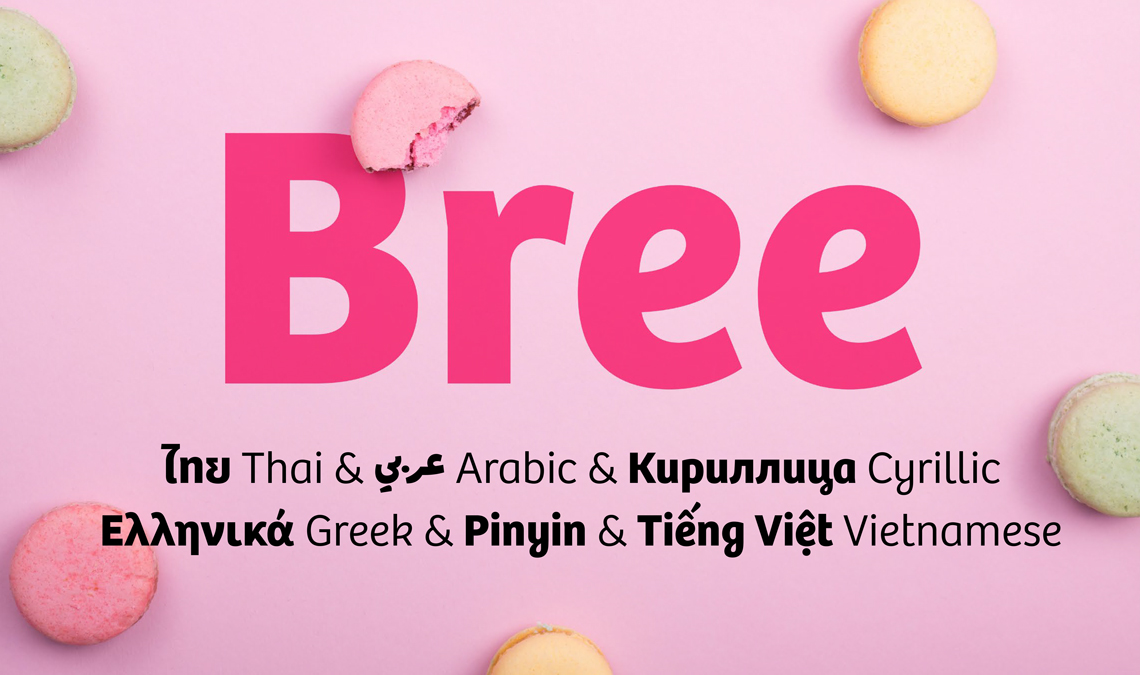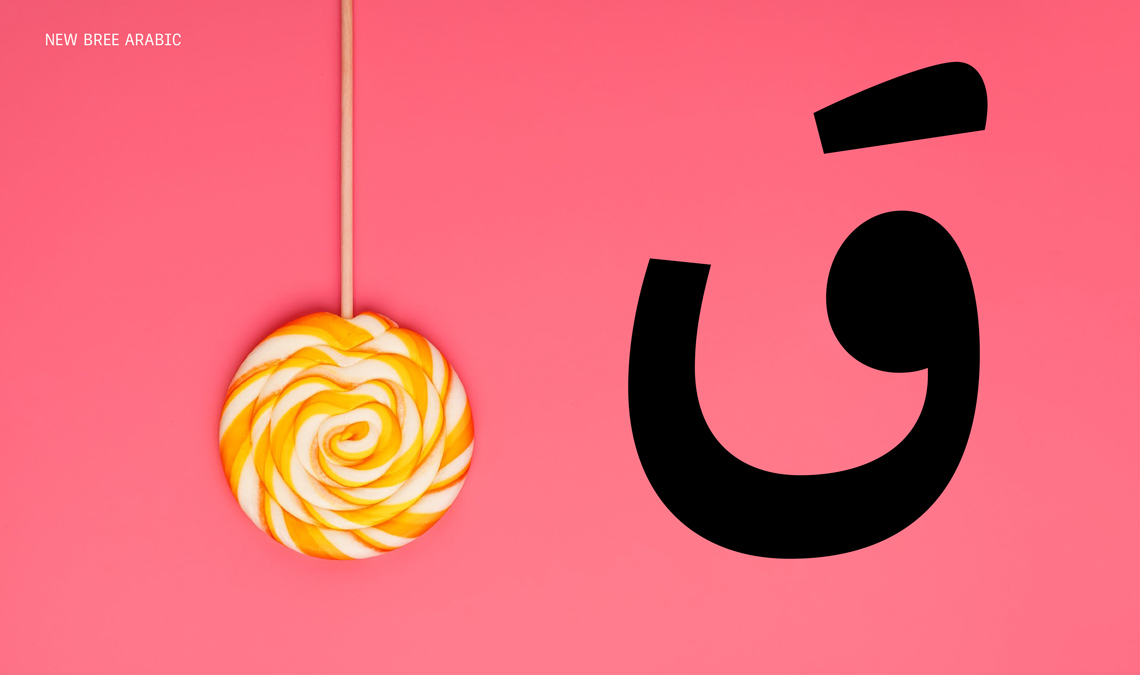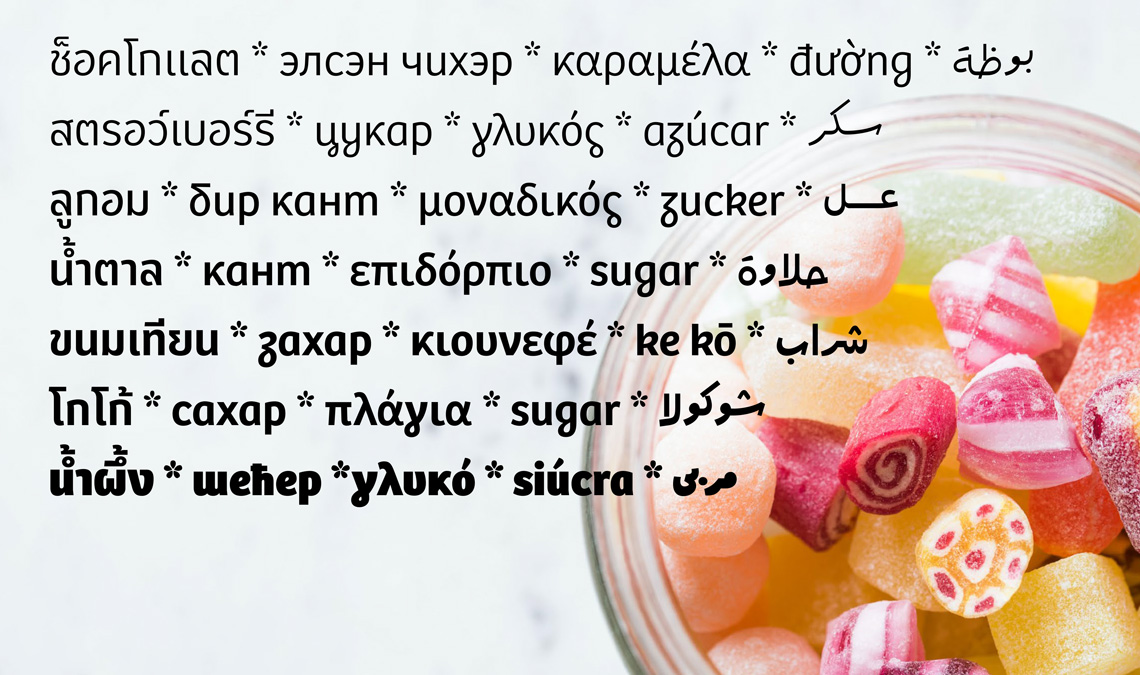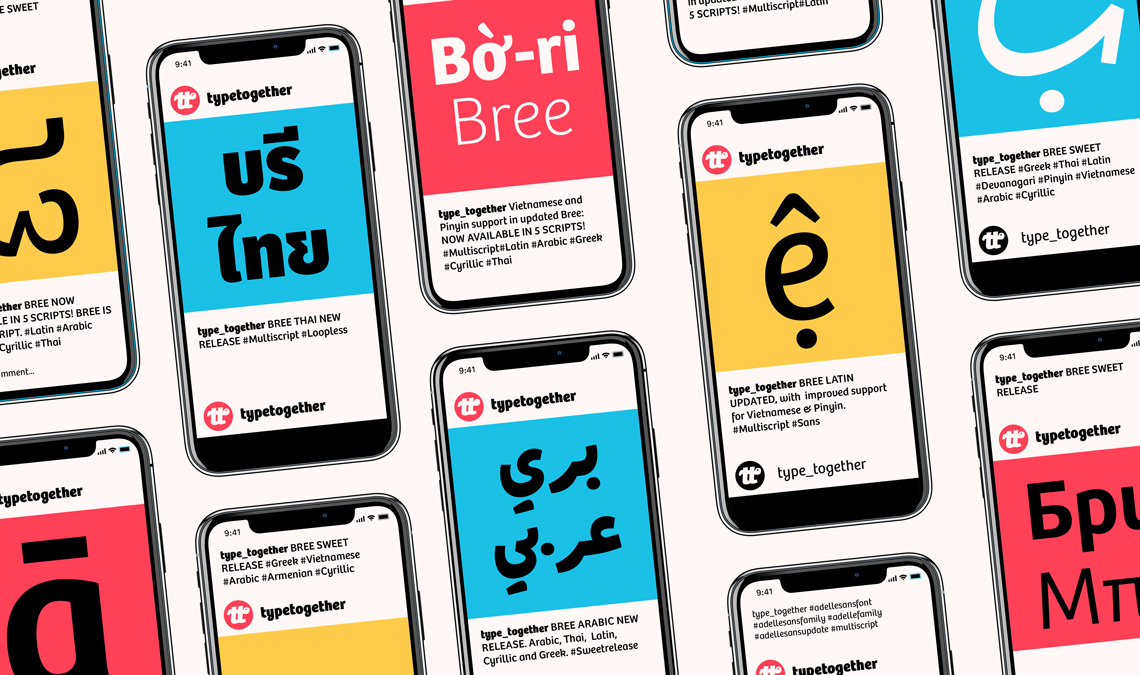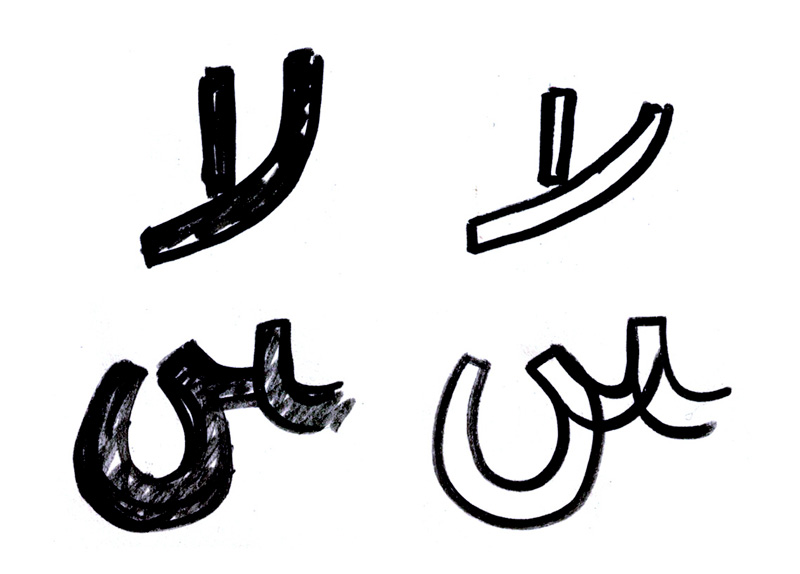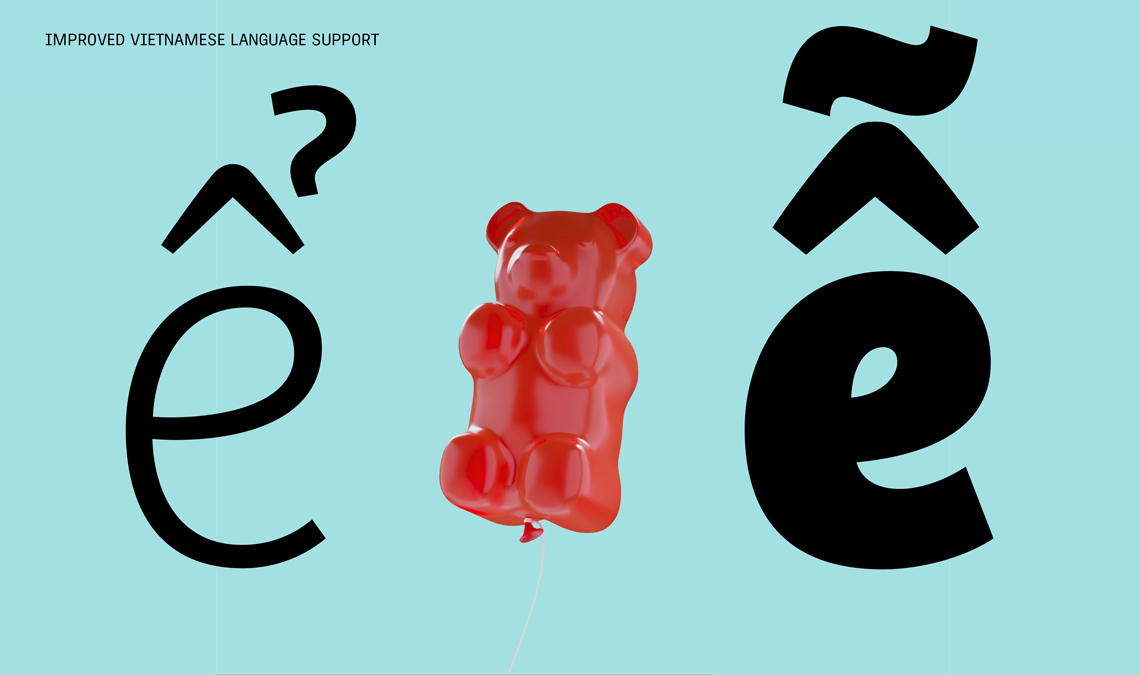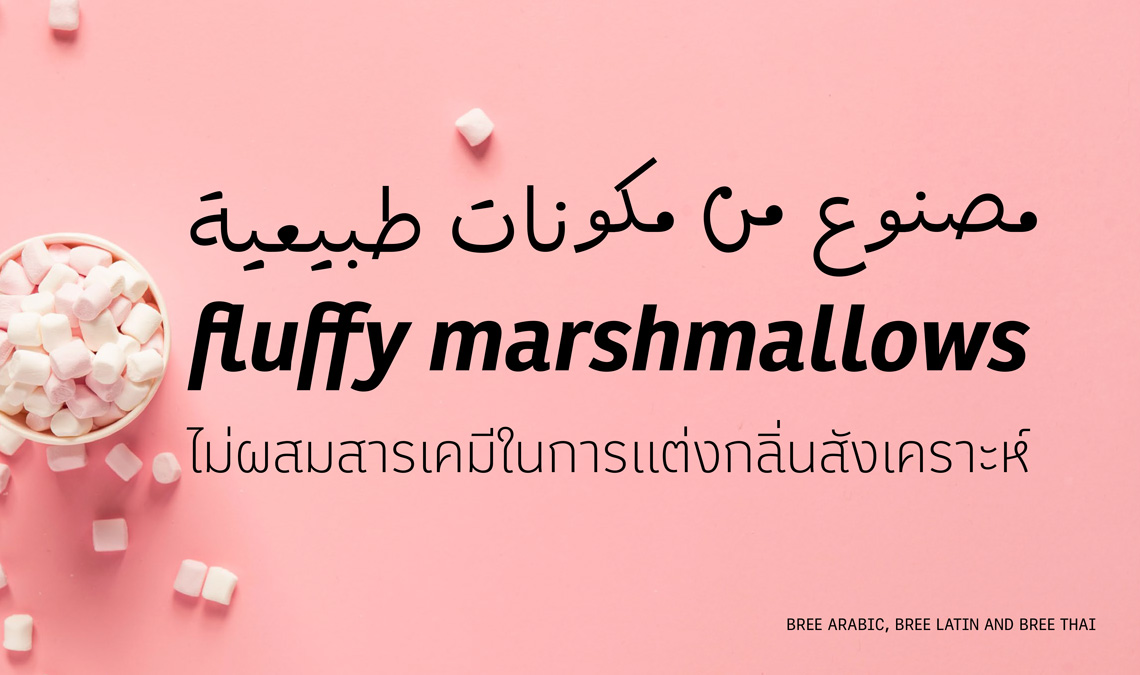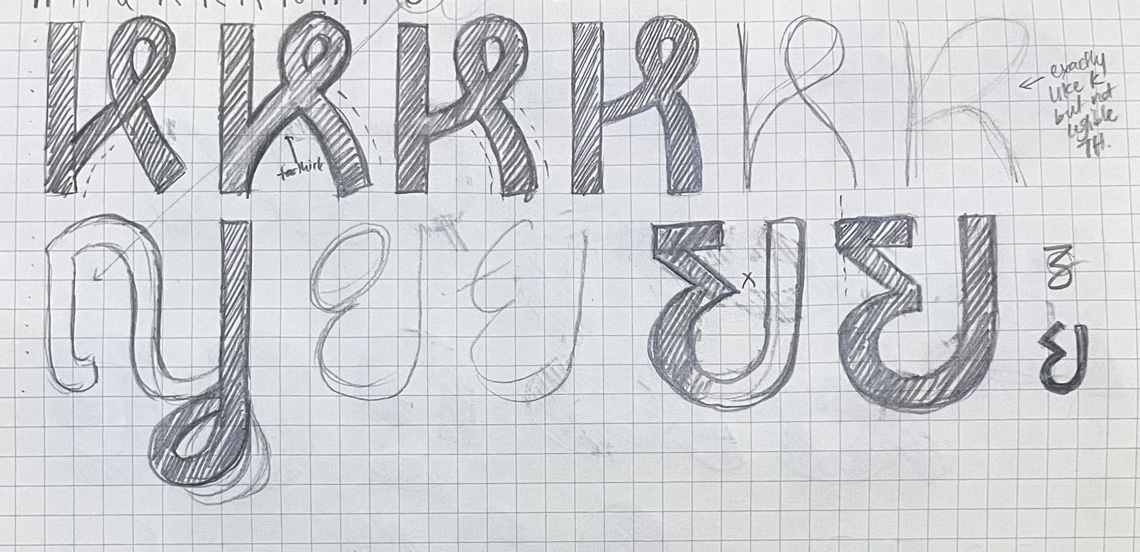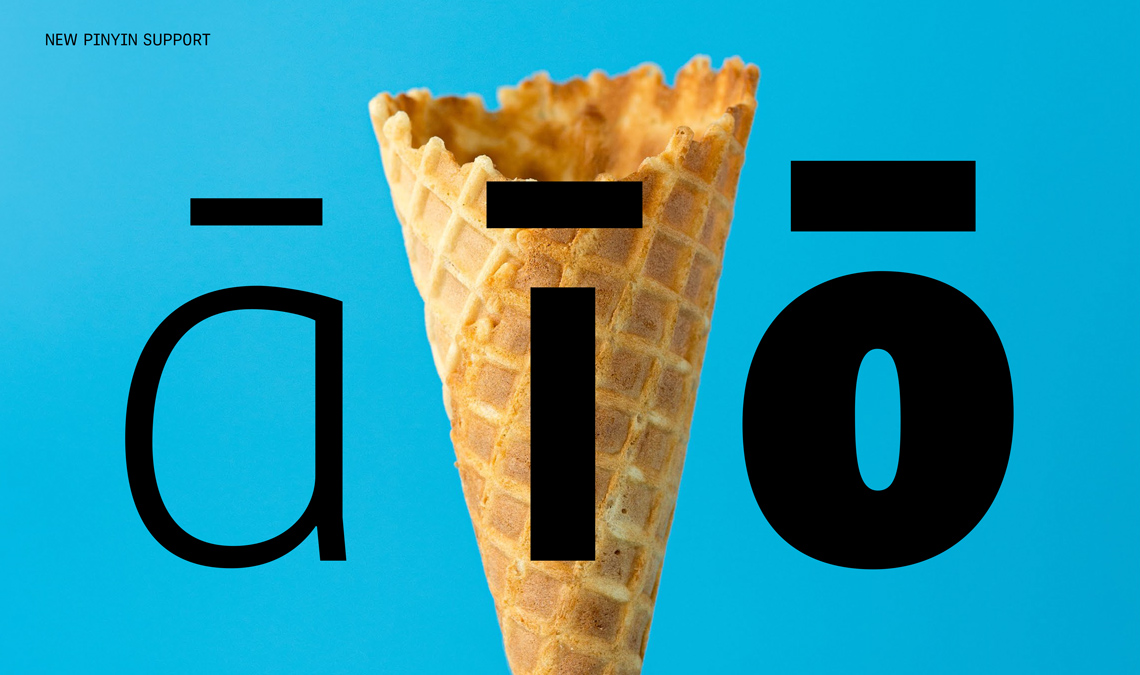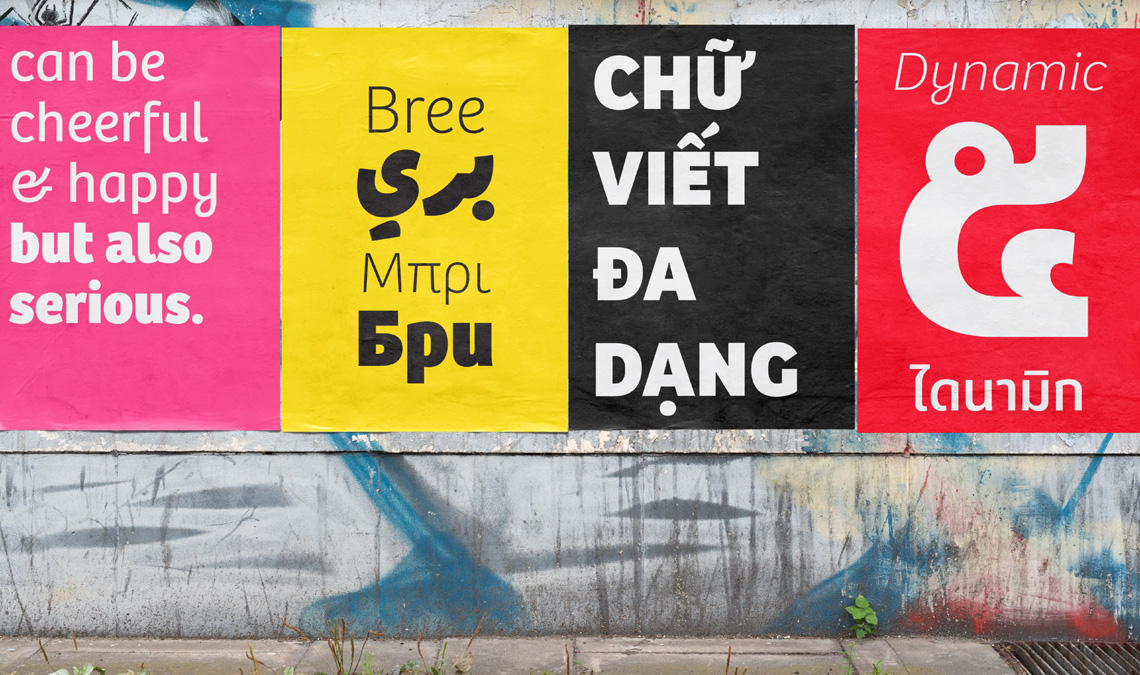
Bree is going (more) global
For TypeTogether’s last release of 2021, we have a sweet surprise. Our award-winning typeface family Bree is available in two new scripts: Arabic and Thai. Bree Latin now also supports Pinyin and features improved Vietnamese diacritics. Read on to hear from Azza Alameddine who designed Bree Arabic; Cadson Demak’s Anuthin Wongsunkakon on Bree Thai, designed by his colleague Panuwat Usakulwattana; and Donny Truong who advised on the Vietnamese. Plus a holiday bonus: a sneak peek into Bree Devanagari.
The story so far
Bree began its life as Veronika’s lettering for TypeTogether’s logo back in 2006. It inspired a ton of curiosity and interest, and so in 2009 we created a typeface from its style. Influenced by handwriting but thoroughly typographic, Bree is a friendly sans serif that has been used for everything from branding to packaging and magazines, in print and on screens. Now over a decade old, it has lost none of its youthful spryness, and remains one of the most sought after upright italics even today.
We celebrated Bree’s tenth birthday in 2019 with a huge update: new Latin characters, spacing and lettershape improvements, support for Vietnamese, variable fonts, and most notably, the release of Bree Greek and Bree Cyrillic.
Continuing our commitment to creating multiscript fonts, we are proud to announce Bree Arabic and Bree Thai, and our effort to make Bree our second global font after Adelle Sans. With five scripts already under its belt, including a Latin that supports Vietnamese and Pinyin, this is only the start. We hope to create an international typeface family that embraces diversity, all while keeping Bree’s characteristic good-natured spirit at the forefront.
Speaking Arabic
The design for Bree Arabic was led by Azza Alameddine, with assistance from Najla Badran and Rabab Charafeddine. To recreate the influence of handwriting, Azza based the design on the Ruq’ah style of Arabic calligraphy. Ru’qah was developed in response to the needs of the Ottoman bureaucracy to make paperwork faster and is recognisable by its straight strokes and simple curves. Combined with soft, rounded shapes, it gives Bree Arabic a lively and warm appearance, just like its Latin counterpart.
The designers of Bree Arabic translated calligraphic ligatures from the Ruq’ah style to typographic forms, giving the typeface an impressive extended ligature set numbering over 400. It also includes stylistic alternates for combined forms from Ruq’ah, where the dot and base letter are connected to further accentuate its roots in handwriting.
With its seven weights, ranging from Thin to Extrabold, Bree Arabic can be your go-to font family for communicating in a convivial tone.
Conversations in Thai
For the design of Bree Thai, we reached out to renowned design communications firm Cadson Demak. Panuwat Usakulwattana designed the seven-weight Bree Thai family to not only be a capable partner to the original Latin, but also as a standalone design we hope will be used widely for Thai-reading audiences.
Building on distinctive Latin details that sit just as comfortably with Thai letterforms, Bree Thai is a modern loopless design that is formal in its appearance but with a cheerful twist. Our seasoned working relationship with Cadson Demak meant we were able to forge the same personality in Bree Thai that Bree Latin is well-known for, despite the vast differences between the scripts.
Building bridges with Pinyin
As part of our commitment to make fonts that speak the languages of the world, the latest version of Bree now supports Pinyin. Pinyin is the official system of romanization for the Chinese written language developed in the 1950s and based on the pronunciation of the Beijing dialect of Mandarin Chinese.
Like most phonetic representations of the Han language, Pinyin uses clusters of letters usually formed by initials and finals to represent syllables. The system makes a very clear distinction between aspirated and unaspirated initials. The finals are usually represented by vowels or groups of letters containing at least one vowel. These could have floating diacritics to mark the four tones of Mandari — macron, acute, caron, and grave — and Bree now includes all these necessary accented characters.
Making Vietnamese diacritics better
When we asked Vietnamese expert Donny Truong to review Bree, he gave us feedback on how to connect the marks better because he felt the diacritics lacked the handwriting qualities which gave the typeface its friendly and distinctive voice.
Based on Donny’s suggestions, José undertook a complete overhaul of Bree’s diacritical marks. With meticulous attention to detail, he incorporated handwriting touches and organic shapes to their design. He redrew the tilde to give it more curvature, and added the bottom tail to the hook above to give it a humanist touch; detached the acute and the grave from the circumflex; and repositioned all stacking accents to the right of the circumflex for consistency. Finally, José also reworked the ư and ơ to make them more consistent with each other. Together, these changes not only improve the visual design of the Vietnamese glyphs in Bree, but also help with readability in long texts.
Suppakit Chalermlarp (Cadson Demak Co., Ltd., Thai)
Consultancy
Vera Evstafieva (Cyrillic)
Already five scripts — Latin, Greek, Cyrillic, Arabic, and Thai — and seven weights strong, Bree Multiscript is ready for your next international project. Take our friendliest typeface family for a spin and show us how you use it!